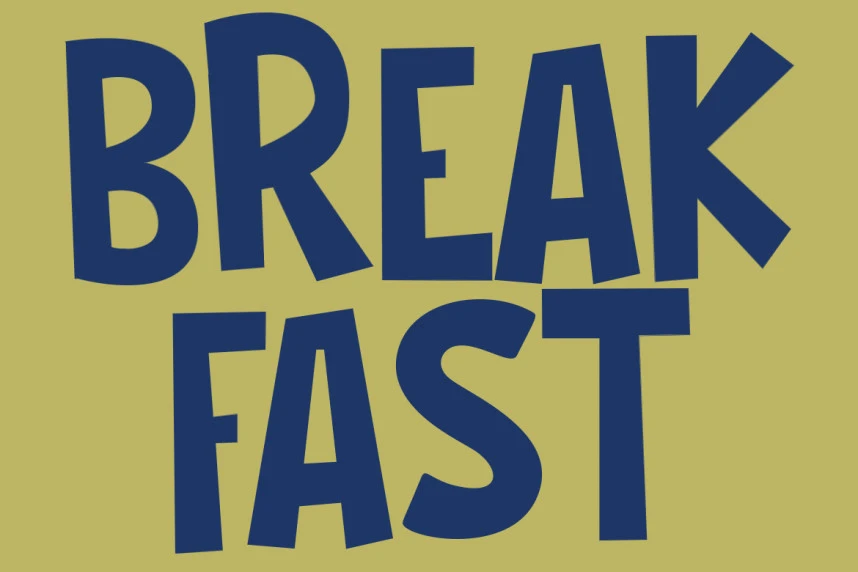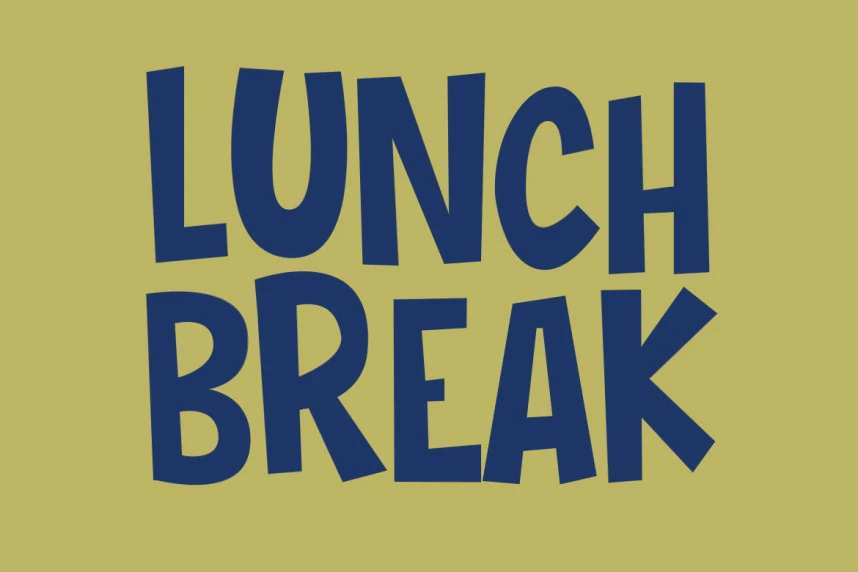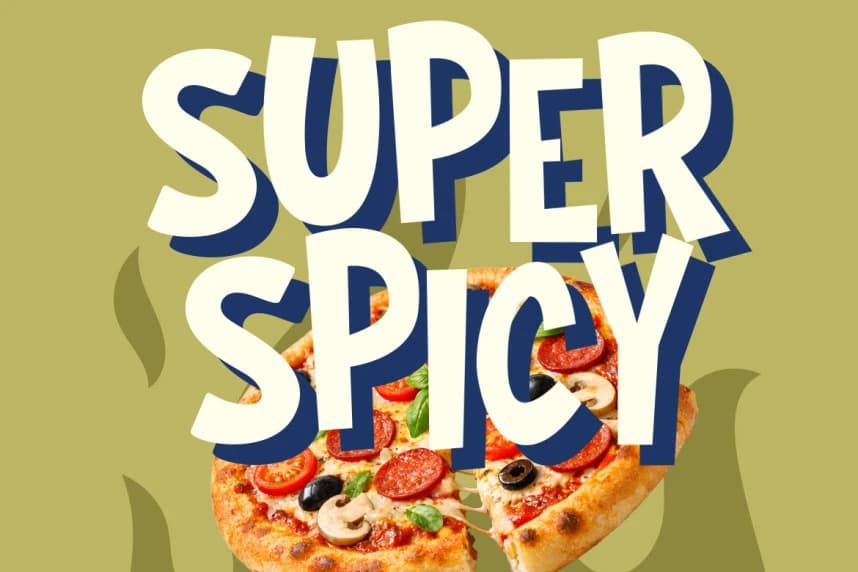
Bread Tolks Font
Bread Tolks Font - This bold display font features chunky, hand-drawn letterforms with a playful and energetic character. The strokes are thick and irregular, giving each character a unique, organic shape that feels approachable and friendly.